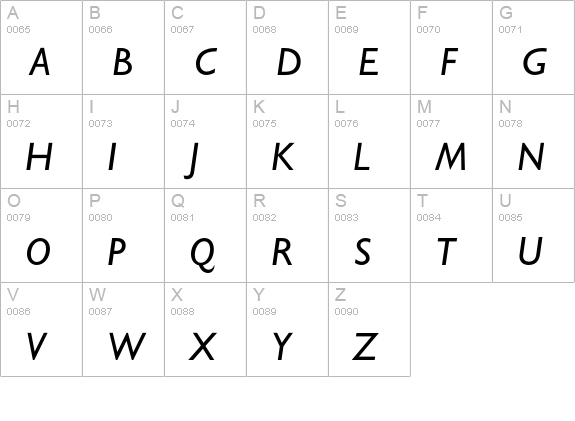
GentleSansBookItalic Font Details
GentleSansBookItalic is a sophisticated and elegant font that exudes a sense of refinement and grace. Its delicate italic style adds a touch of sophistication to any design project, making it perfect for use in branding, editorial design, and more. The slender and graceful letterforms of GentleSansBookItalic create a harmonious flow of text, making it easy to read and pleasing to the eye. What sets GentleSansBookItalic apart is its versatility and timeless appeal. Whether used for headings, body text, or quotes, this font adds a touch of class to any project. Its subtle slant and gentle curves give it a unique flair that sets it apart from other fonts. Best of all, GentleSansBookItalic is available for free download at FontsMarket.com. This means you can easily access this elegant font and elevate your designs without any cost. So why wait? Download GentleSansBookItalic today and add a touch of sophistication to your next project!